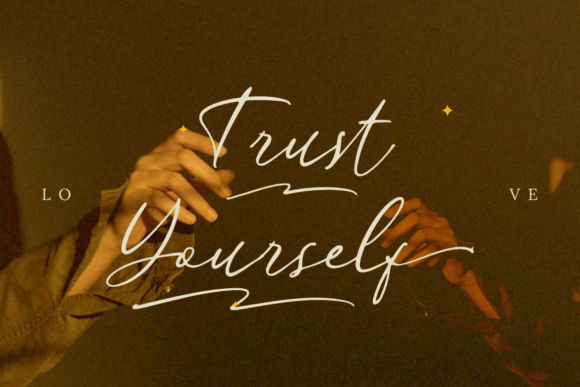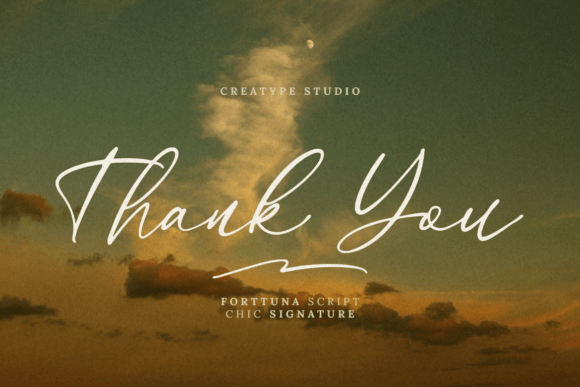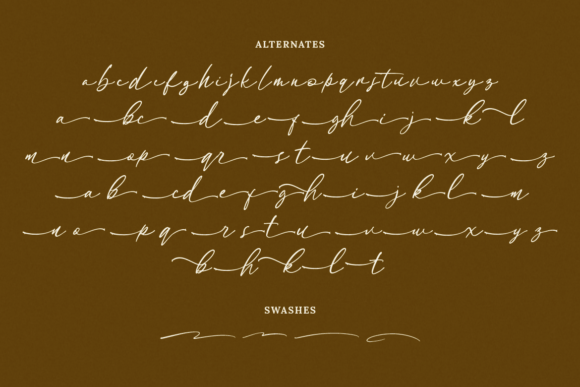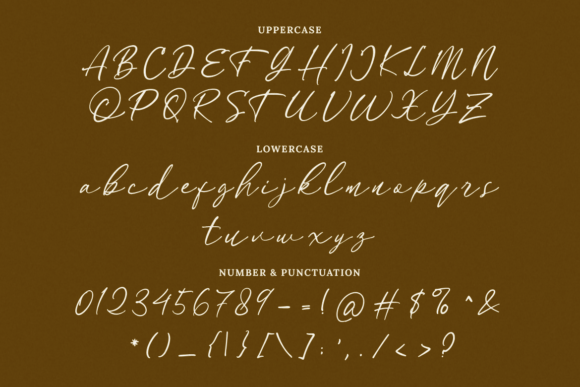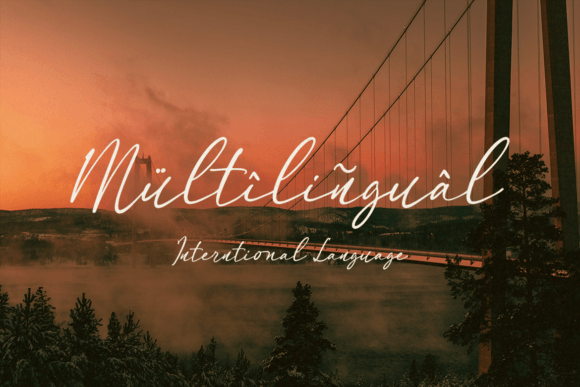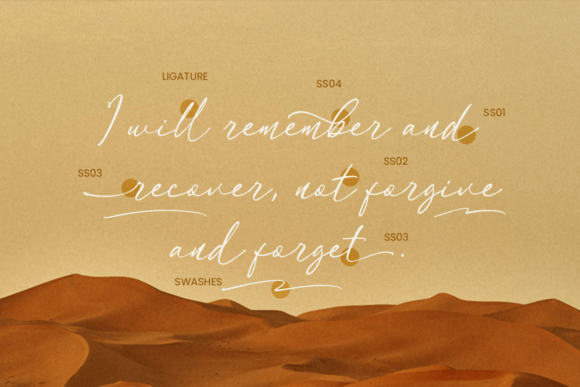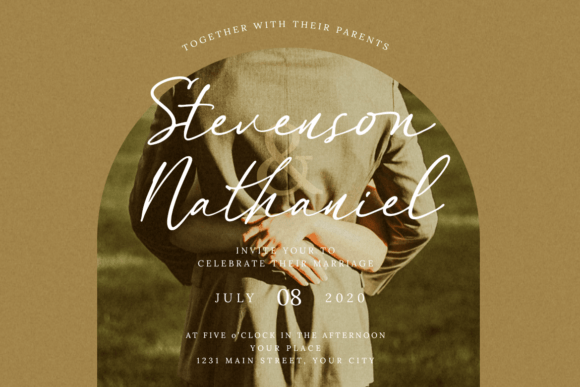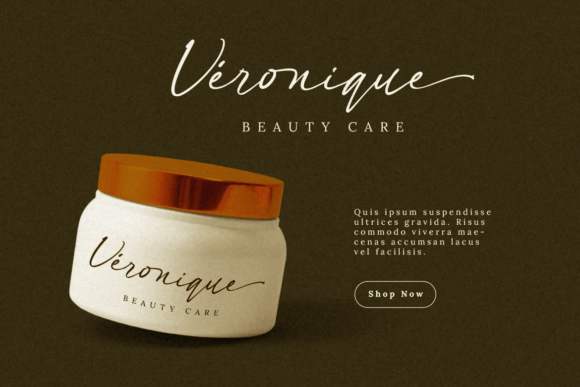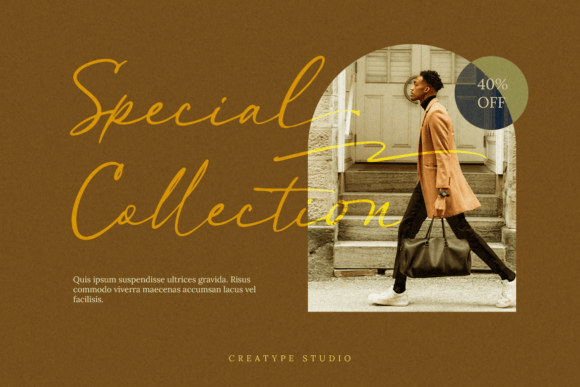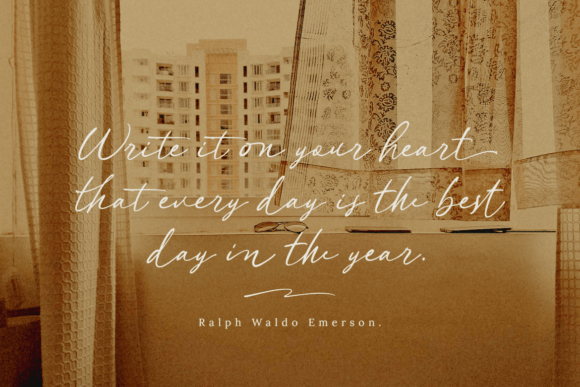
Forttuna Font
About Forttuna Font
“Forttuna” is a font characterized by its exquisite beauty, natural grace, and unmistakably feminine charm. Inspired by the goddess of fortune and luck, this font embodies the essence of good fortune and elegance. It seamlessly adapts to a wide array of purposes, whether they be for business or personal use. “Forttuna” is an ideal choice for branding projects, logos, wedding designs, social media posts, advertisements, product packaging, labels, and any creative endeavor in need of a stylish handwritten touch.
“Forttuna” transcends standard typography; it’s a design asset that captures the spirit of beauty, grace, and femininity. Its meticulously designed characters radiate an aura of sophistication, making it an invaluable addition to your design toolkit for crafting projects that evoke style and elegance.
One of the standout qualities of “Forttuna” is its adaptability. Whether you’re developing a captivating branding project, designing an elegant wedding motif, or creating eye-catching social media content, this font effortlessly integrates into diverse design contexts, enhancing each project with its distinctive allure.
The font’s appeal extends seamlessly from print media to the digital landscape. Whether gracing the pages of a luxurious magazine or adorning an Instagram post, “Forttuna” adds an elegant and feminine touch to every setting. Its impeccable readability ensures that your message is conveyed with clarity and style, while its inherent beauty adds an extra layer of visual allure.
What truly sets “Forttuna” apart is its ability to bring a sense of grace and femininity to your designs. It’s a font that invites your audience to engage with your creative ideas on a deeply aesthetic level. With “Forttuna” as part of your creative toolkit, you can convey your message in a way that resonates with individuals who appreciate beauty and elegance.
Furthermore, “Forttuna” offers a wide array of customization options, allowing you to tailor your text to perfectly match your creative vision. This flexibility empowers you to create designs that are as unique as your artistic imagination.
In conclusion, “Forttuna” is not just a font; it’s a design asset that elevates your creative projects with beauty, natural grace, and feminine charm. Embrace its handwritten style, and let it inspire you to craft beautiful and elegant designs that leave a lasting impression. With “Forttuna” by your side, your creative possibilities are endless, enabling you to create works of art that are as stylish and feminine as they are versatile and captivating.